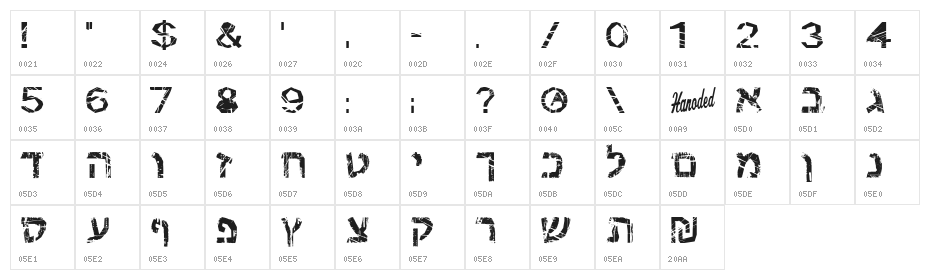
Tzeva Tari Font
Tzeva Tari Description
This font features a bold and fragmented design, characterized by a shattered glass effect that gives each character a unique and edgy appearance. The bold strokes are irregularly broken, creating a sense of dynamic movement and chaos. The overall aesthetic is modern and unconventional, making it stand out in any design project. The characters are well-defined despite their fragmented nature, ensuring readability while maintaining an artistic flair. This font is particularly suitable for projects that aim to convey a sense of disruption or innovation.
| Proposed Projects | Ideal for album covers, posters, branding for edgy or innovative products, and any design that requires a bold statement. |